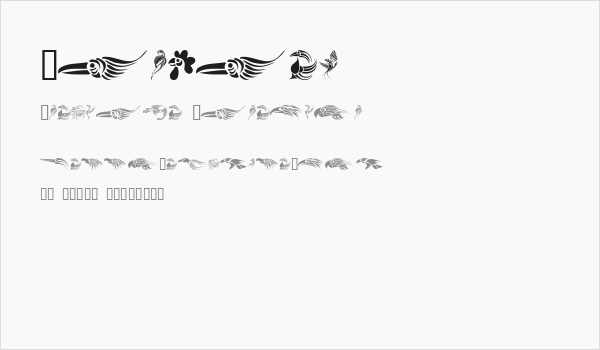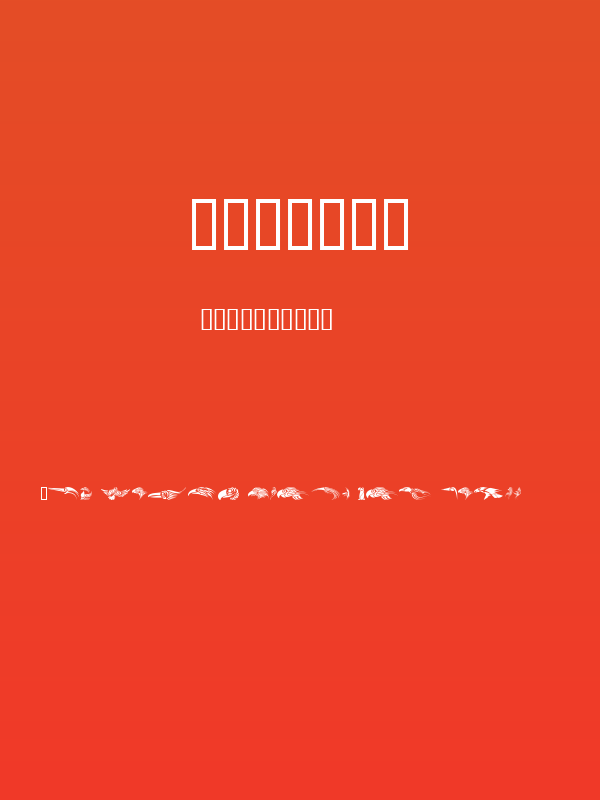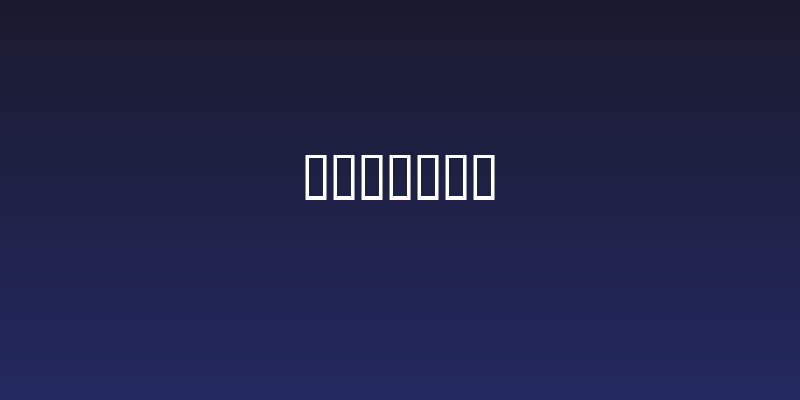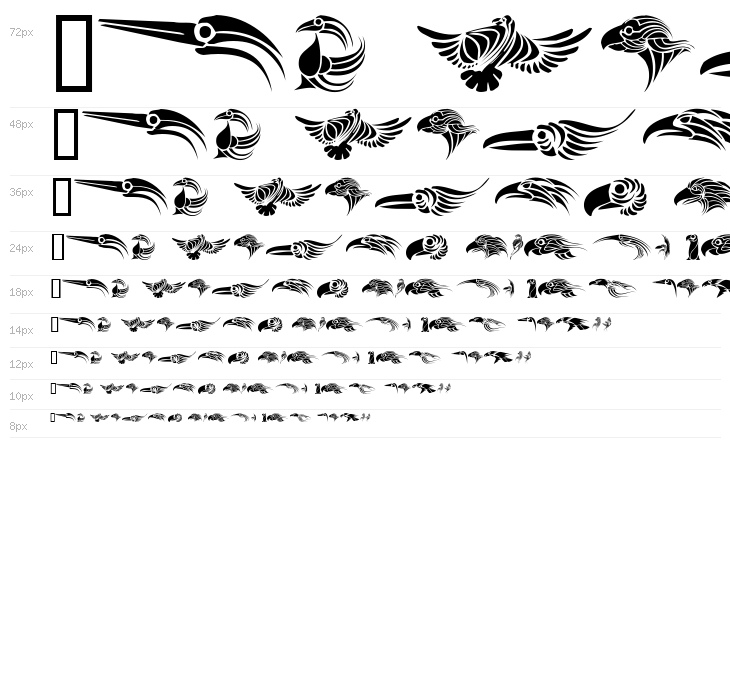
Birdies Font
Birdies Description
A decorative display font featuring stylized bird illustrations for each character, with intricate and flowing linework creating unique avian forms instead of traditional letter shapes.
| Overall Style | Decorative, Artistic, Nature-inspired |
| Use Case | Logos, Headlines, Themed graphics, Posters |
| Proposed Projects | Nature-themed posters, childrenΓ’β¬β’s books, branding for wildlife organizations, creative invitations, decorative headlines. |